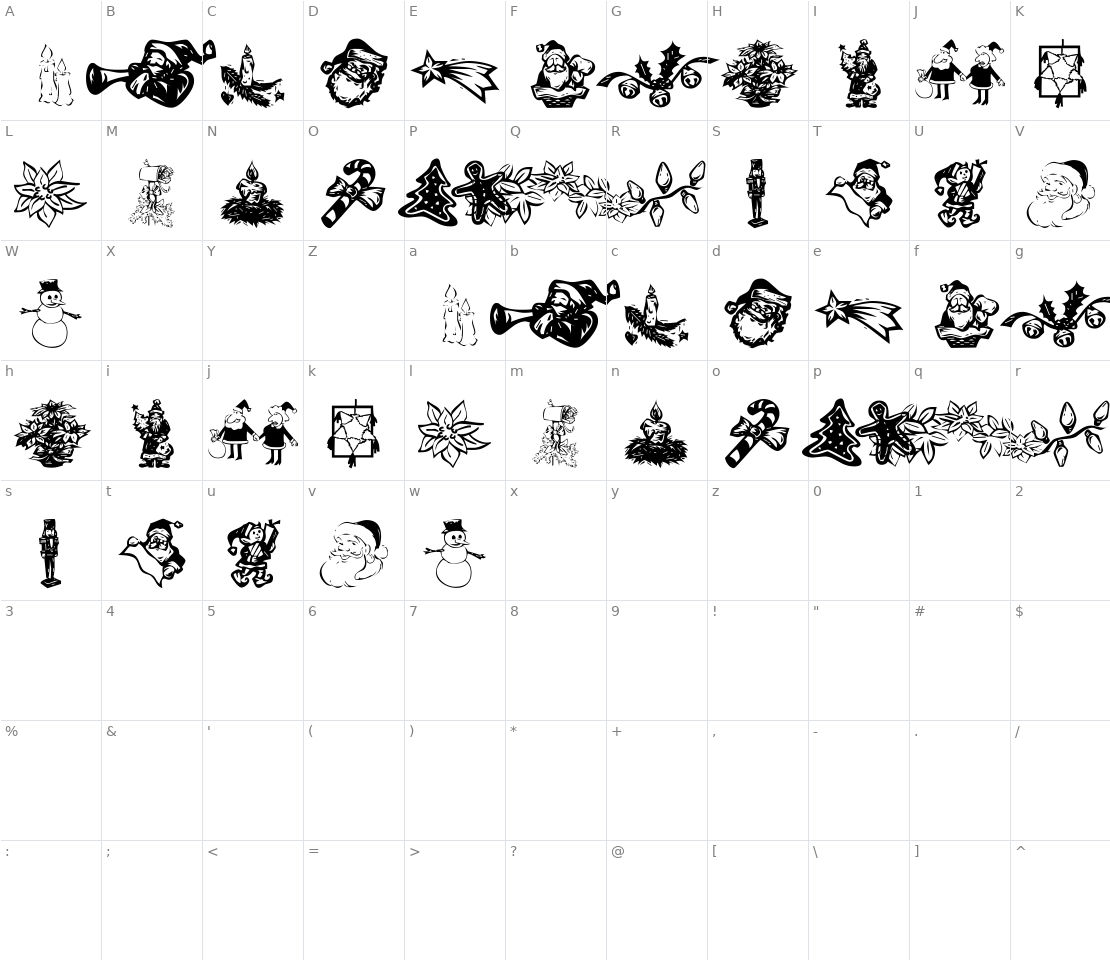
KR Christmas Dings 2004
KR Christmas Dings 2004 is a holiday dingbat set from Kat's Fun Fonts, packed with Christmas-themed symbols and icons like Santa, ornaments, and other seasonal imagery. It's the kind of font you pull out for holiday cards, flyers, and festive layouts when you need quick, charming spot illustrations without sourcing separate clip art.